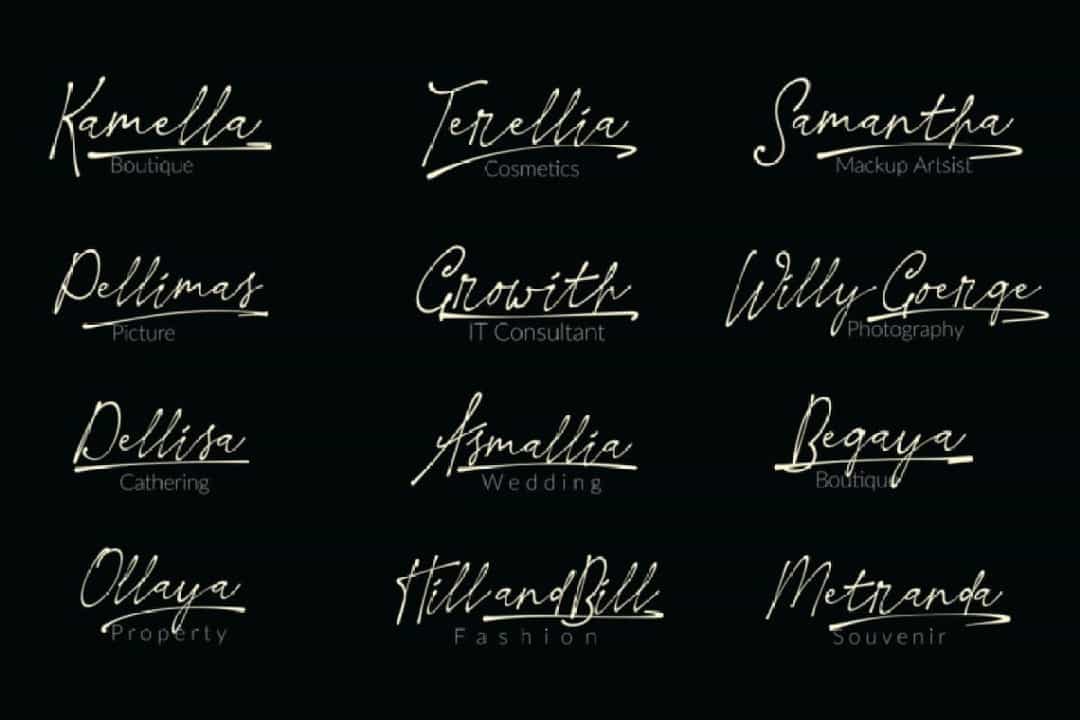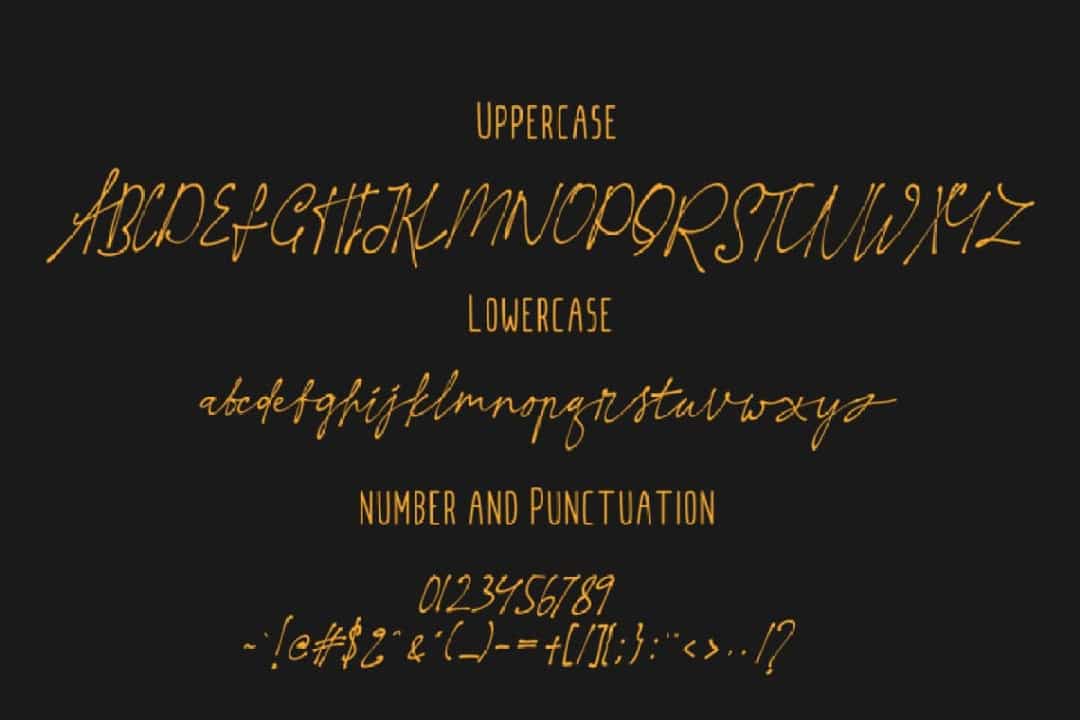
HOT Nice is a script font which gives an artistic look to the design created by Mozyen Studio with a touch of sophistication. There are many factors which may make “Hotnice” a suitable and beautiful choice for your designs. Being an exclusive signature font, “Hotnice” can be used in wedding invitations, beautiful words for t-shirts designs, business card logos, company promotions and more.